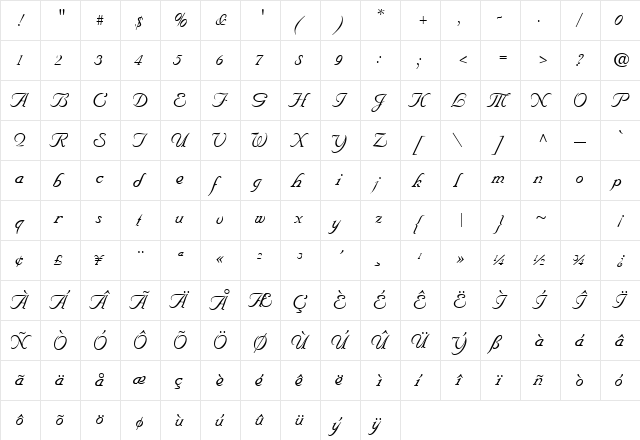
MarriageScript Normal
Design Context for MarriageScript Typeface
MarriageScript brings a calligraphic fluidity to the page — its connecting strokes and expressive curves give it an unmistakably human quality.
Font Pairing: Combine MarriageScript with a simple geometric sans for maximum contrast — the tension between flowing curves and clean structure is a classic typographic pairing.
Pro Tip: Pair MarriageScript with a clean sans-serif for supporting text. The contrast between fluid script and geometric structure creates an elegant typographic hierarchy.